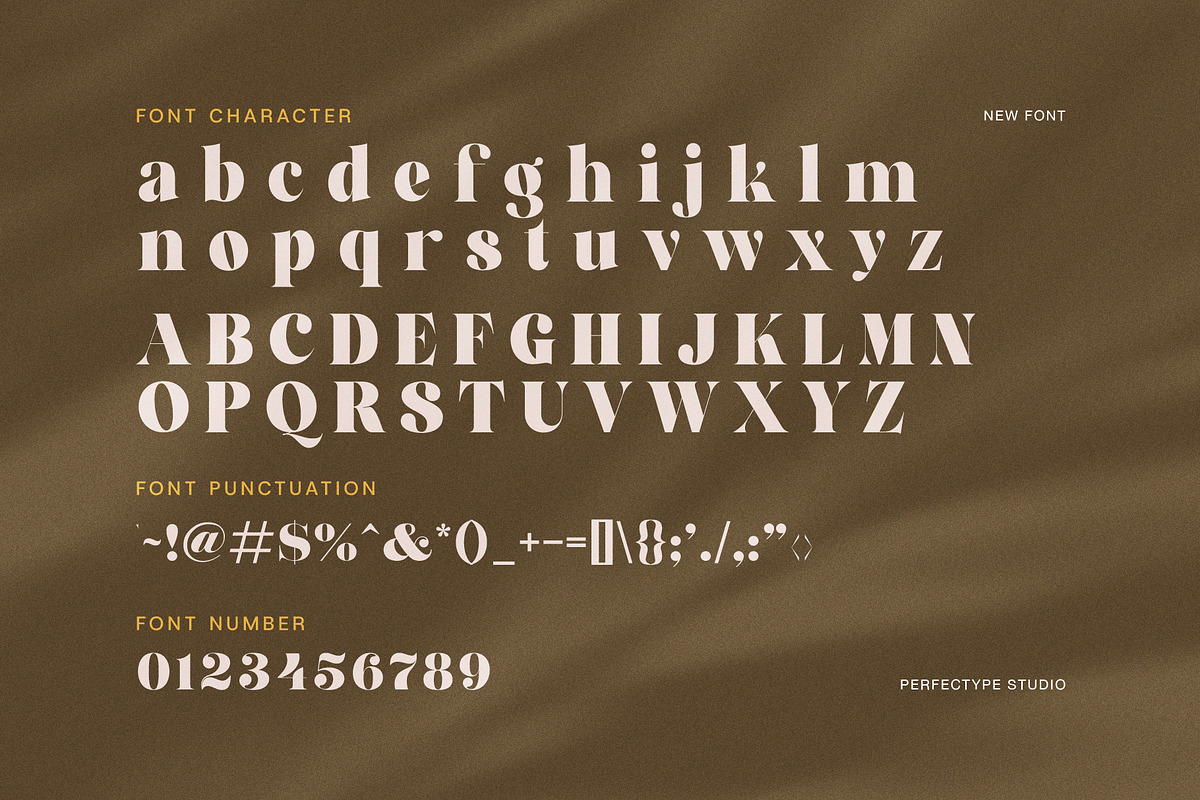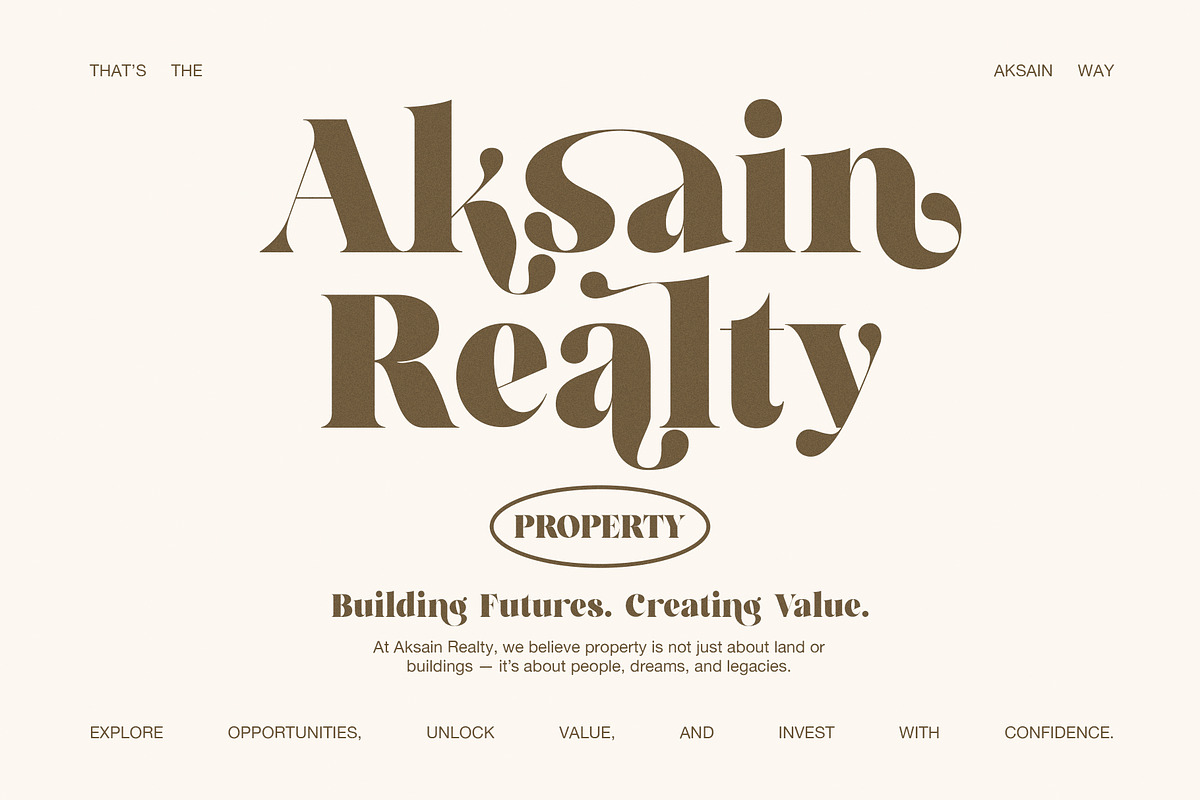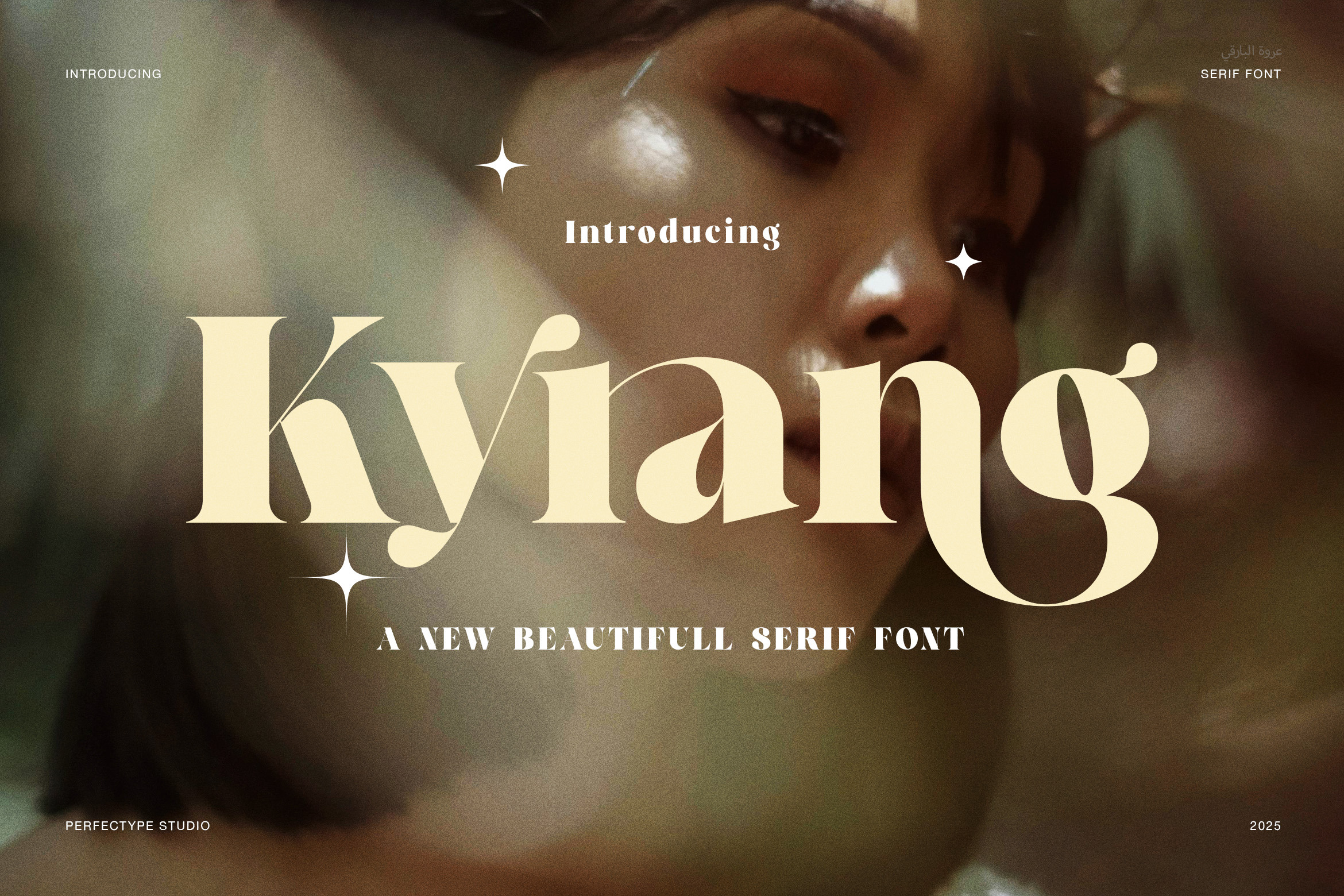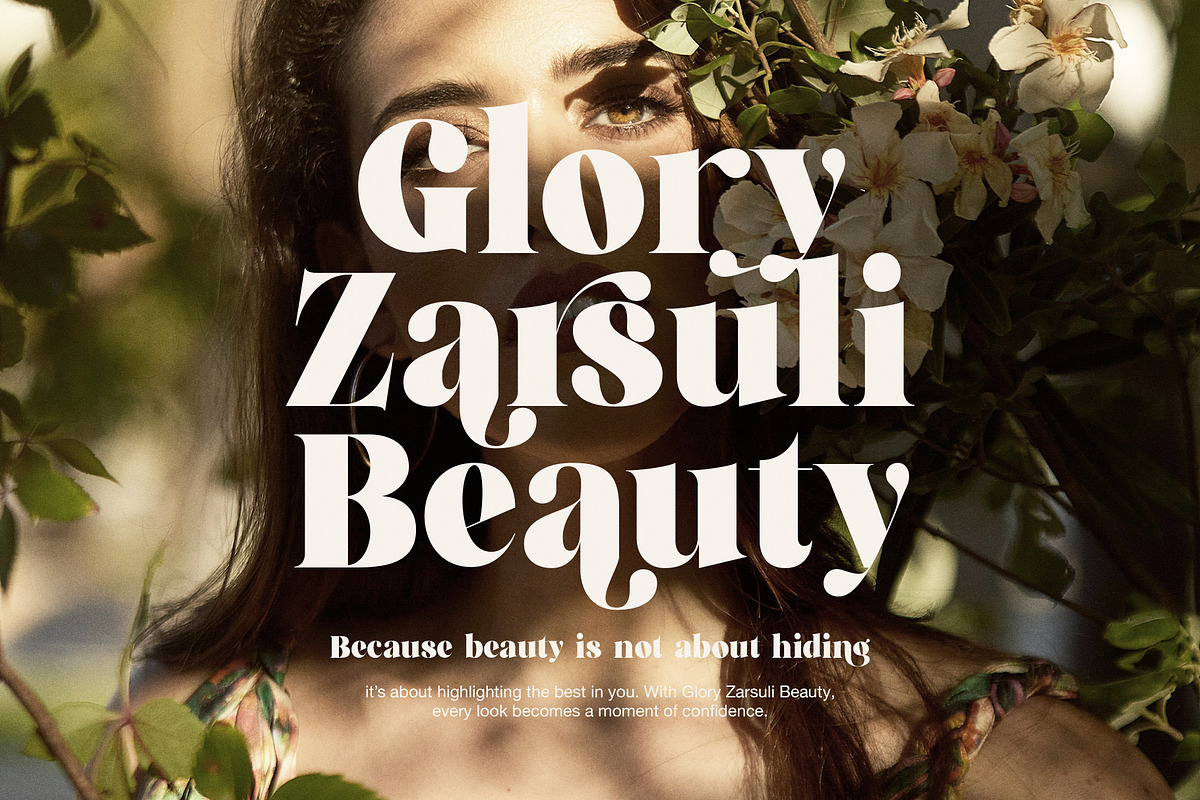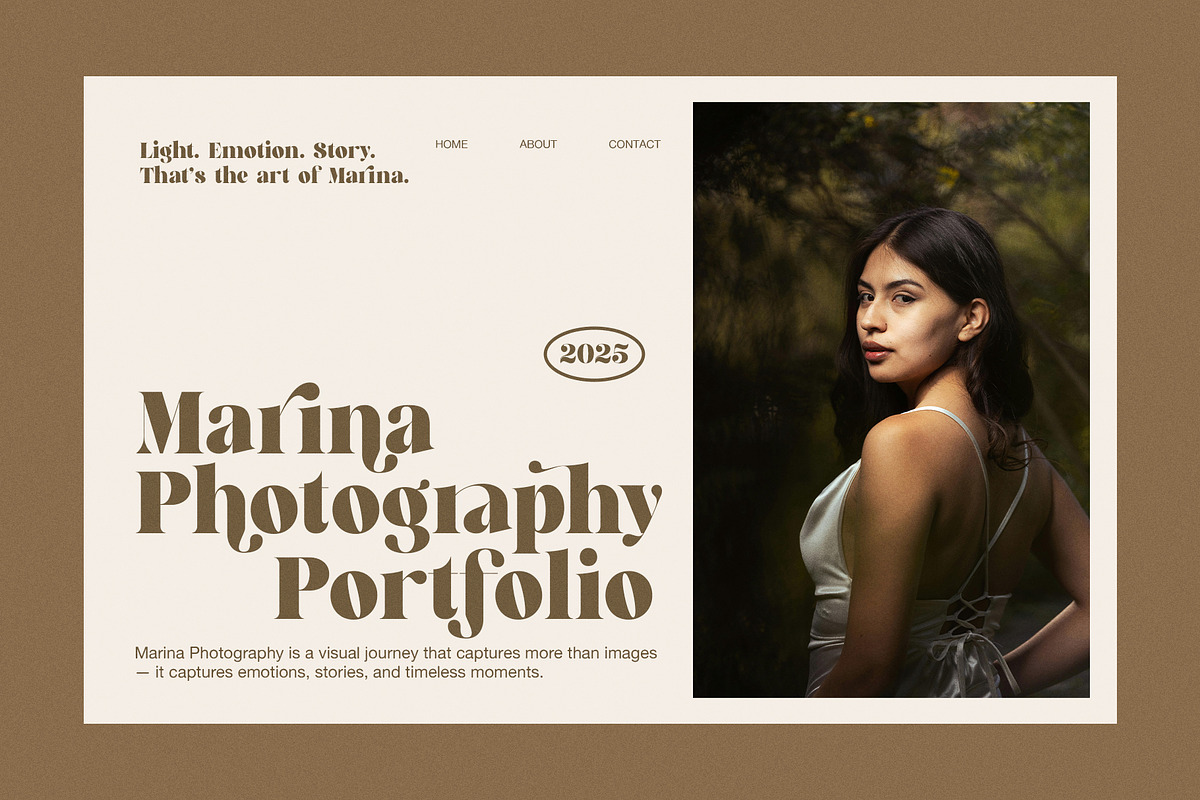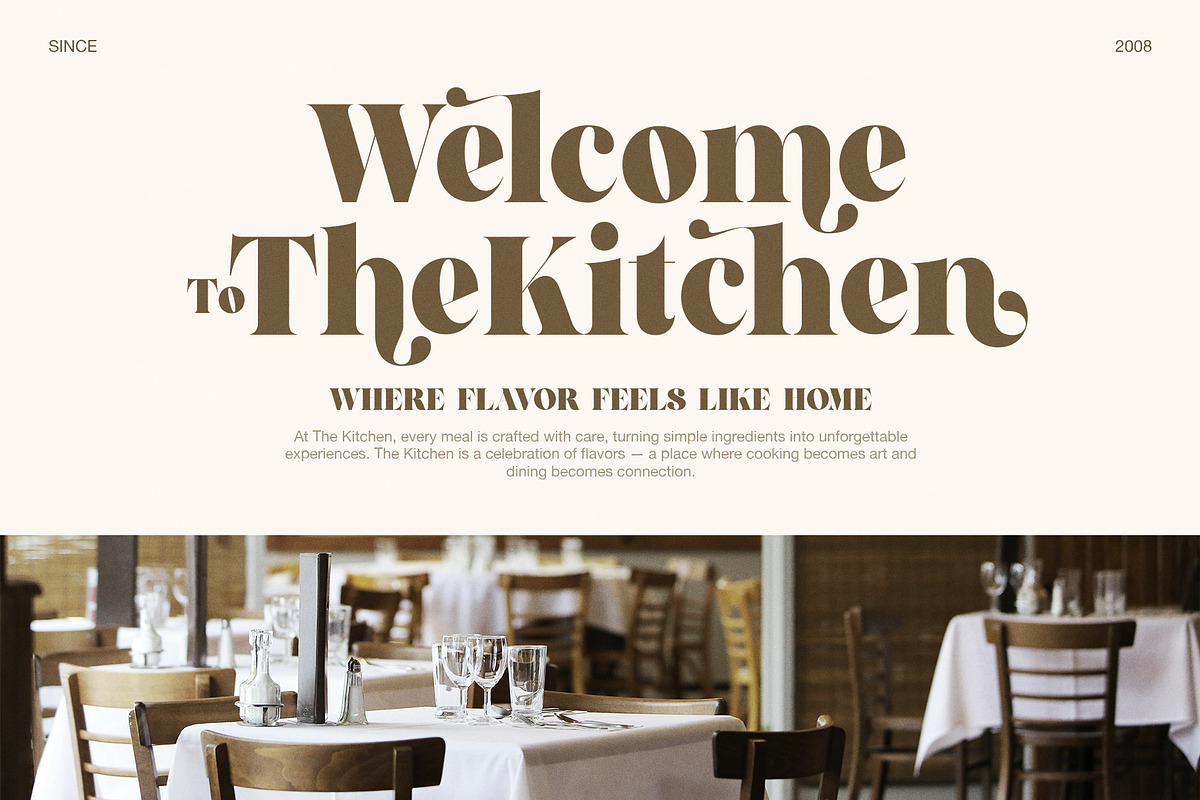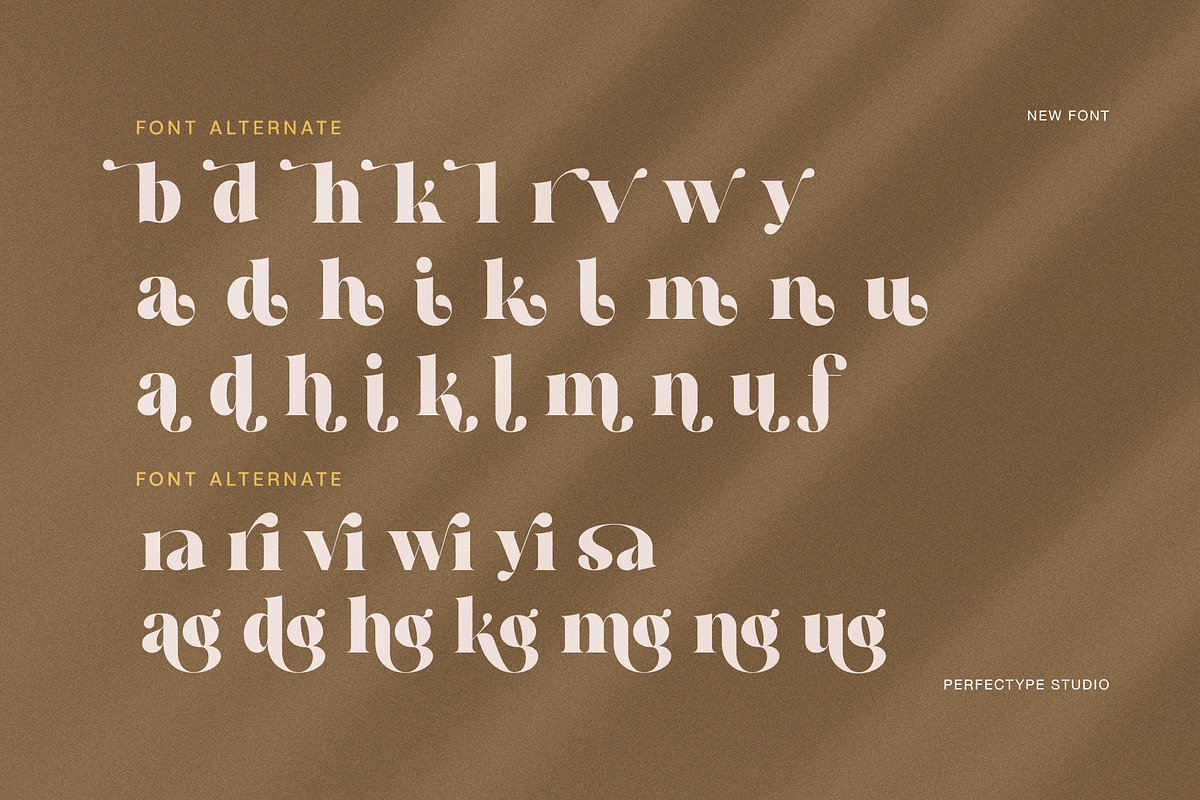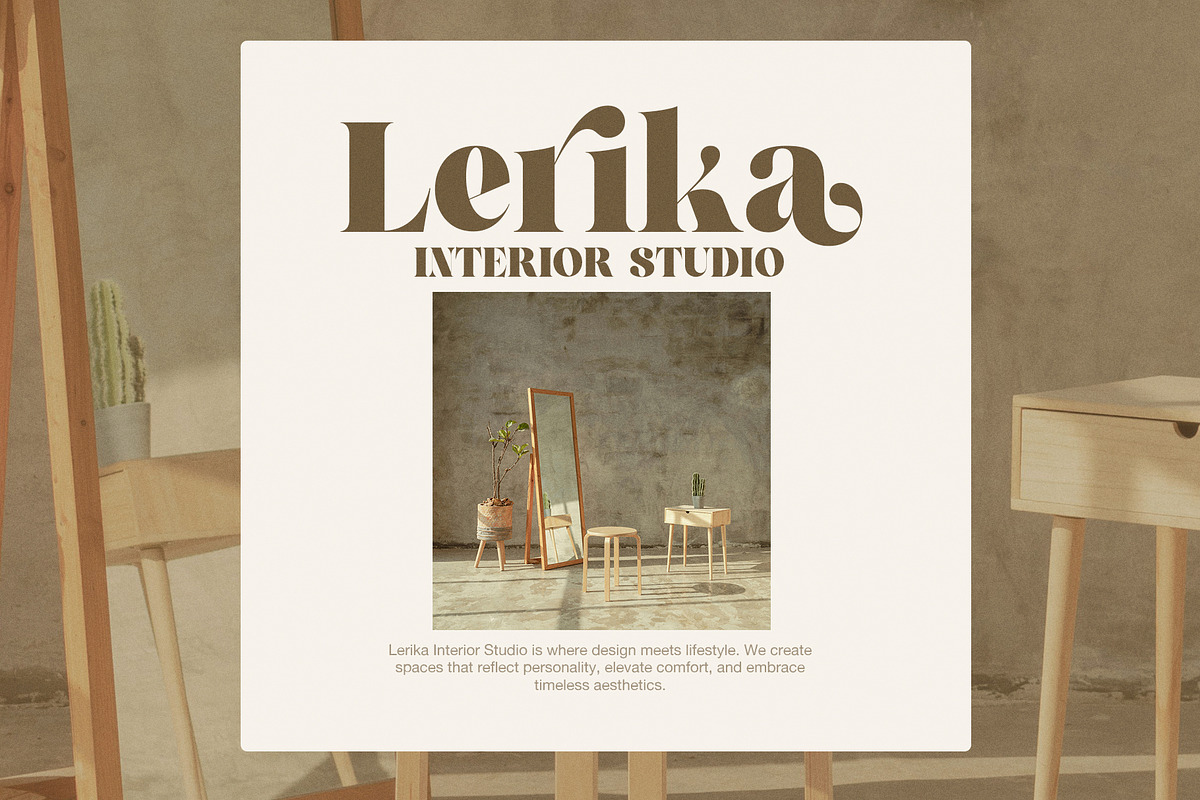
Kyrang Elegant Serif Font
Kyrang Elegant Serif Font is a clean and modern serif font that brings style and ease to your designs. Its smooth curves and clear lines create a fresh look that feels both simple and classy. Because of this, the font fits many uses like branding, magazines, packaging, and wedding invitations.
The shape of Kyrang Serif shows well-balanced letters with neat serifs. Moreover, it has a good mix of thick and thin parts that add charm without making it hard to read. Therefore, it works great for both big titles and smaller text. The style combines modern design with a classic serif look, making it very flexible for different projects.
Kyrang Serif works best when you want a polished but friendly feel. For example, it suits luxury brands, magazine covers, and marketing materials. In addition, you can combine it with sans serif or script fonts to make your designs more interesting and balanced.
This font is easy to use in print or on screens. It supports many languages and keeps spacing even, so your text always looks clear and neat. As a result, it’s perfect for fashion brands, lifestyle projects, corporate materials, and weddings.
Key features of Kyrang Serif include:
Clean, modern serif style
Balanced letter shapes with smooth curves
Great for branding, editorial, and weddings
Easy to read on print and digital screens
Works well with other font types
Supports many languages
By using Kyrang Serif, you add a touch of class and modern style to your work. It’s not just a font; it helps you speak clearly and with style in every design.Kyrang Elegant Serif Font